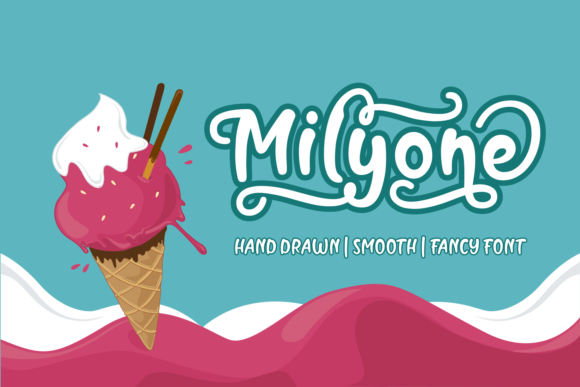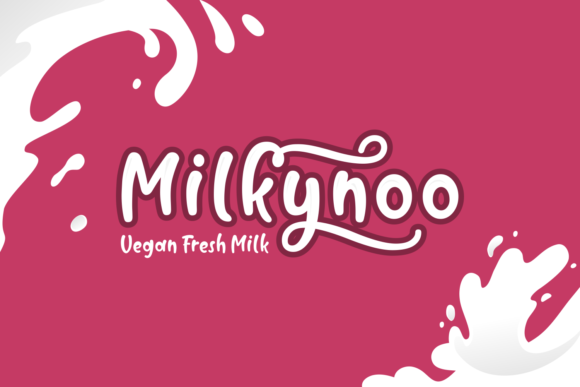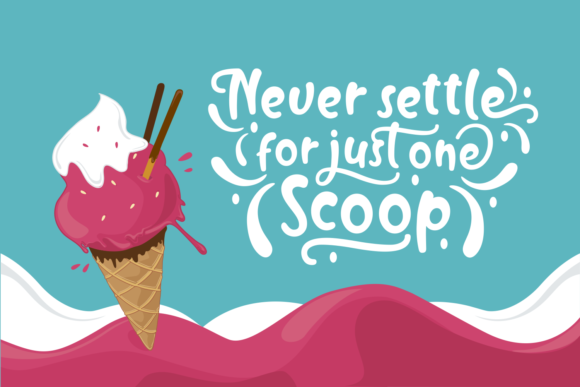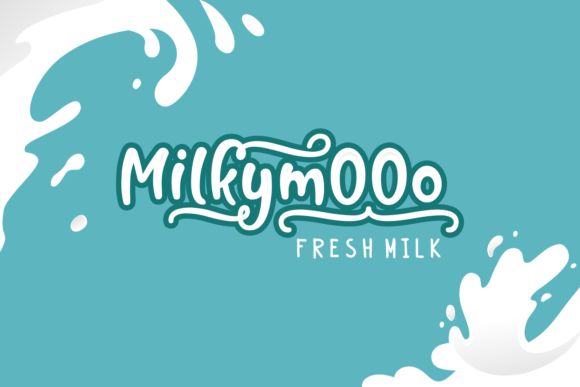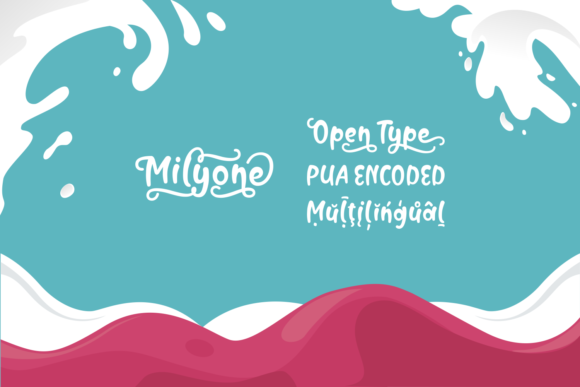
Milyone Font
About Milyone Font
Milyone is a beautiful hand drawn typeface. With it’s smooth letters, Milyone can be used for any design you like. Milyone has a fancy look and feel because of the swashes that are included in this complete typeface.